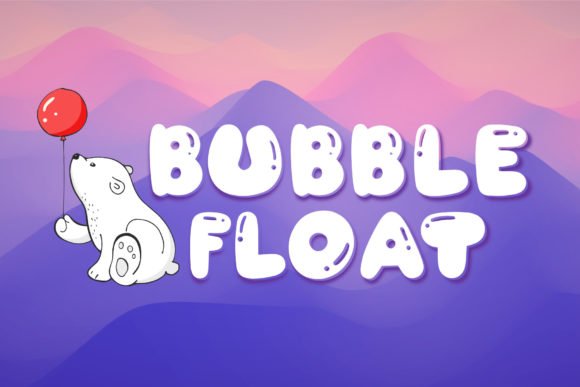
Find Your Font-tastic Moment with Bubble Float Font
Do you ever get that creative spark in the middle of the night, when the world outside is quiet and all you have is your thoughts and a blank page? It’s like the universe is whispering ideas in your ear, and you can’t wait to bring them to life. For designers like us, this feeling is what drives us to create something truly special.
That’s where the Bubble Float Font comes in – a delightful display font that’s as cute as it is easy to read. With its jolly vibe, this font is perfect for adding a touch of whimsy to your projects. Whether you’re crafting a blog post, designing a logo, or creating an invitation, the Bubble Float Font is sure to bring a smile to your audience’s faces.
- Unique Characteristic: Distinctive bubble-like shapes and letterforms that create a playful and whimsical effect, perfect for adding visual interest to designs.
Bubble Float Font Review
Overall, I think Bubble Float Font is a fun and unique font that can add a playful touch to any design project. ✨ I appreciate the care and attention to detail that the creator has put into designing this font. It’s clear that they wanted to create something that would stand out and grab attention.
One of the things that I like about Bubble Float Font is its versatility. ✨ It can be used for a variety of purposes, from digital signage to print materials. The font also comes in a range of weights, which makes it easy to use in different contexts.
- ⚠️ The font may not be suitable for all types of content. For example, it may not be the best choice for formal or professional documents.
- ⚠️ The font can be a bit overwhelming if used in large quantities. It’s best to use it sparingly to avoid visual clutter.
Overall, I think Bubble Float Font is a great addition to any designer’s toolkit. While it may have some limitations, it’s a fun and creative way to add some visual interest to a design project.
Use the Bubble Float Font to create visually appealing headings and titles. Experiment with different font sizes and colors to add emphasis and hierarchy to your design. Avoid using the font for large blocks of text, as it can become overwhelming.
The Bubble Float Font is ideal for creating eye-catching headings, titles, and captions for social media graphics, blog posts, and marketing materials. It’s also great for adding a touch of whimsy and personality to presentations, reports, and other documents.